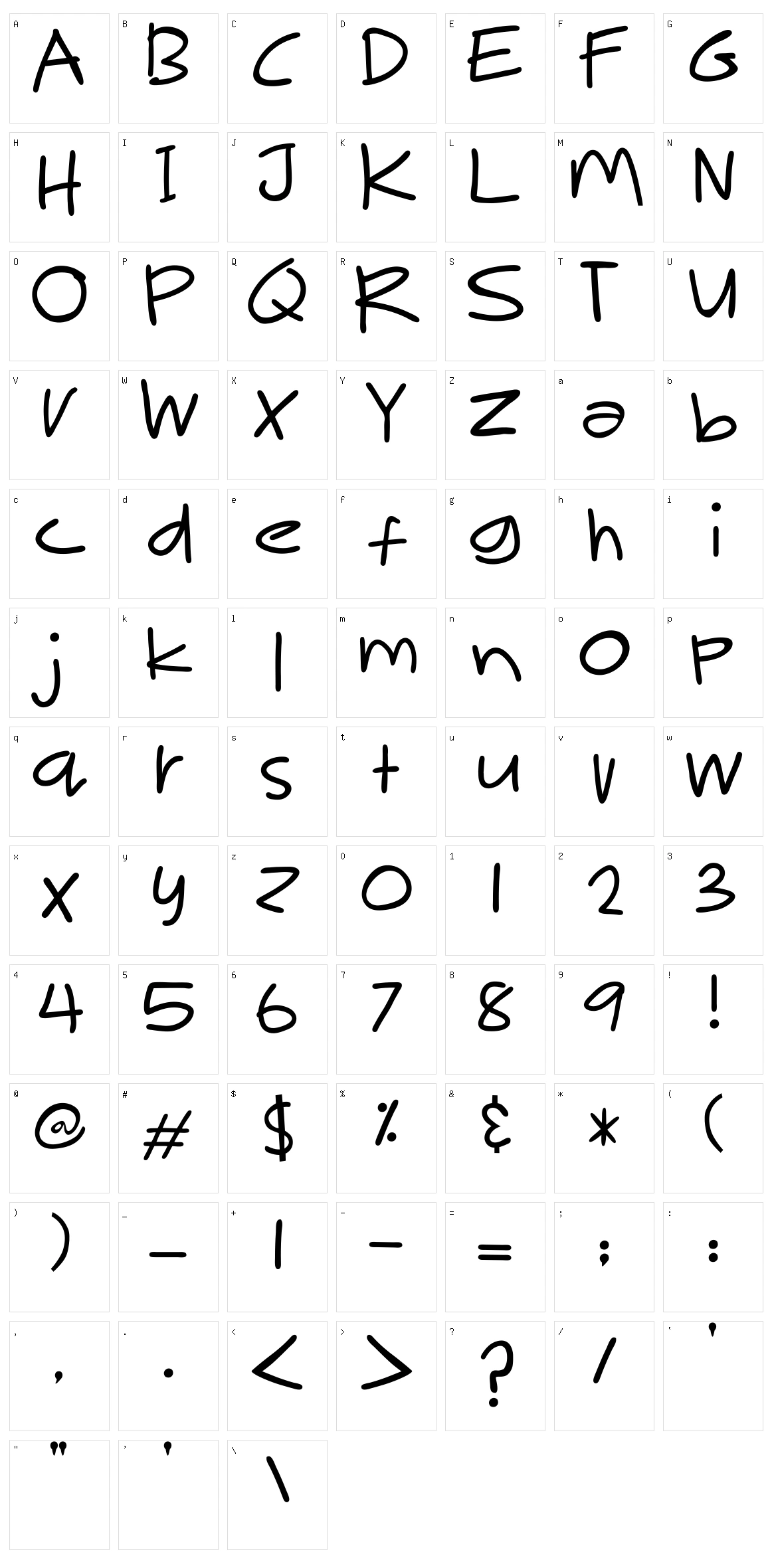
The free font Mak Ngah Punya is carefully designed by Haslinda Adnan, showcasing a thoughtful balance of creativity and usability and falls under the Script font style. When you download the ZIP file, it contains only 62.88 KB of font files, making it lightweight and quick to download. Please review the license details below to understand permitted usage and distribution rights. If license information is not available, we recommend using this font for personal projects only or contacting the author directly for commercial usage permissions.